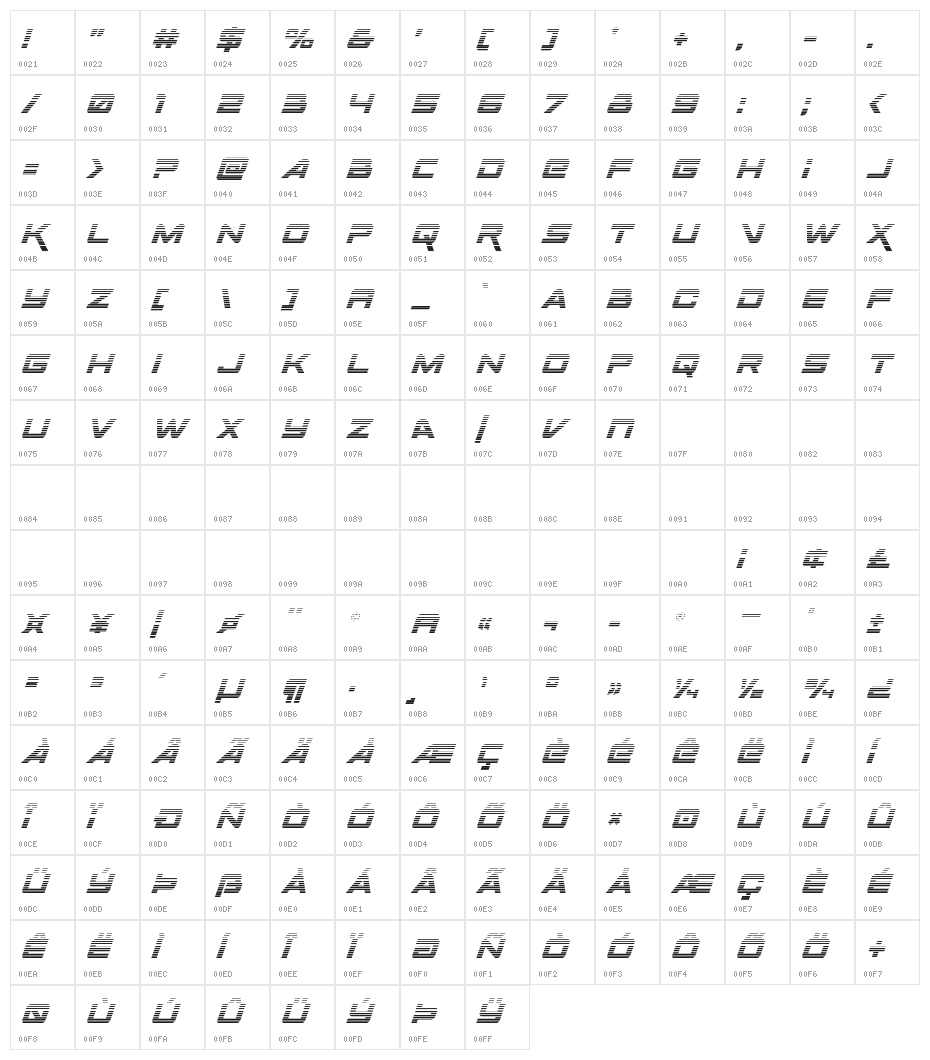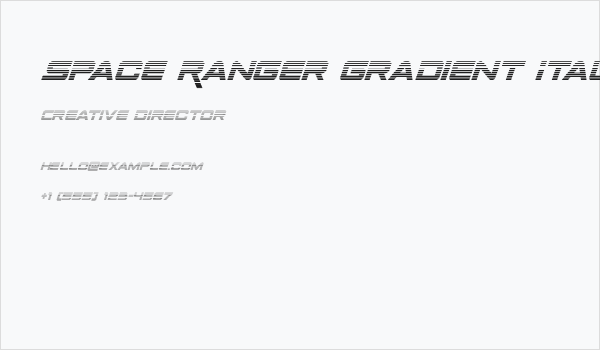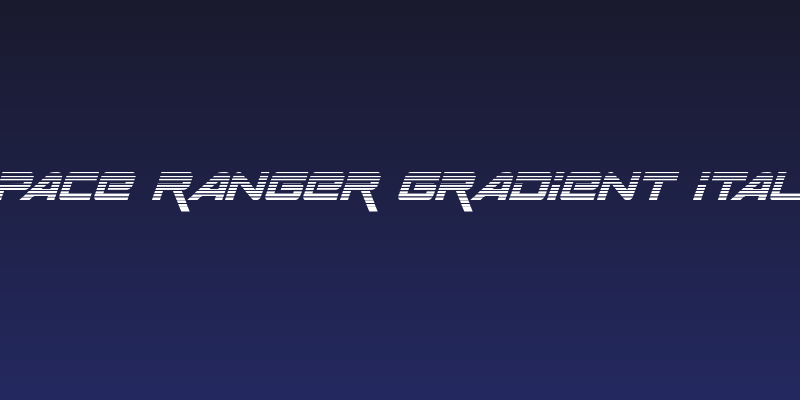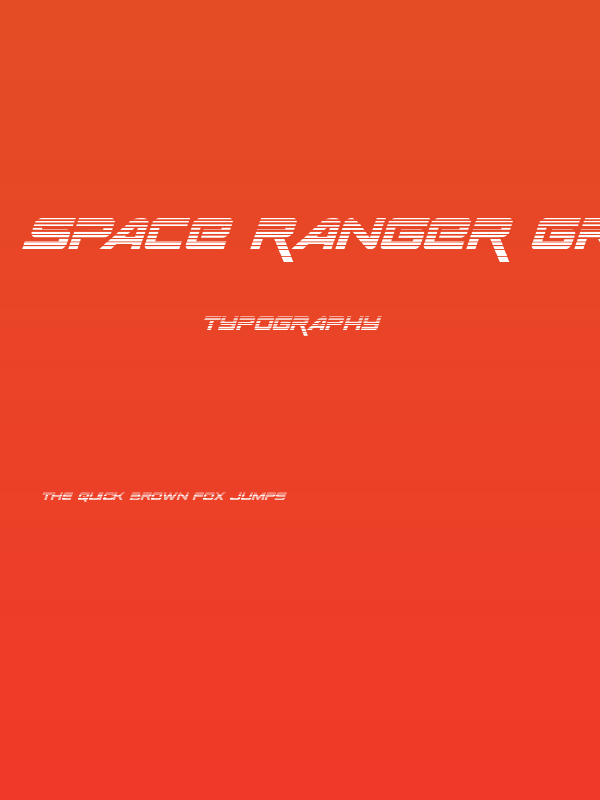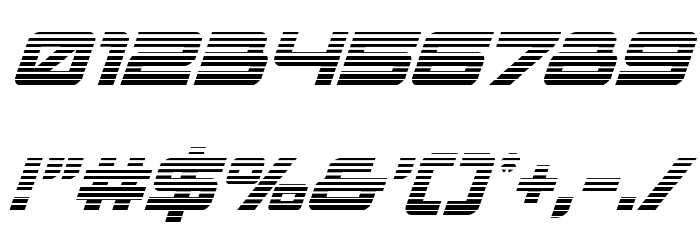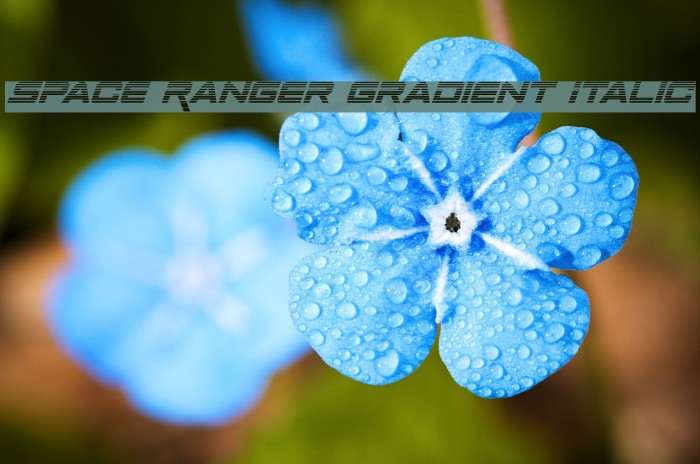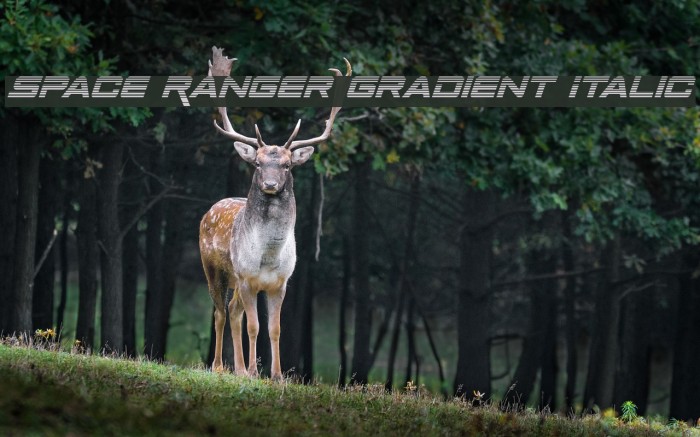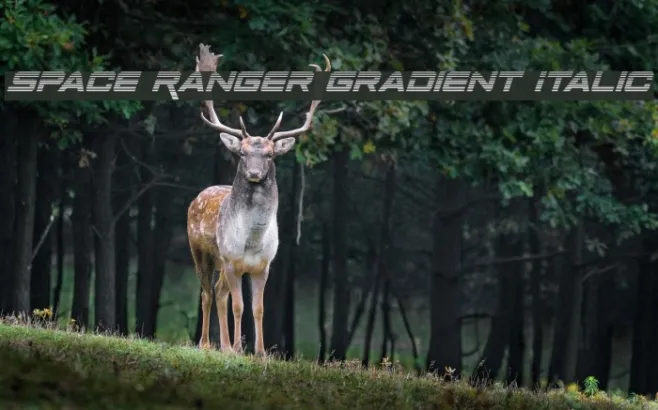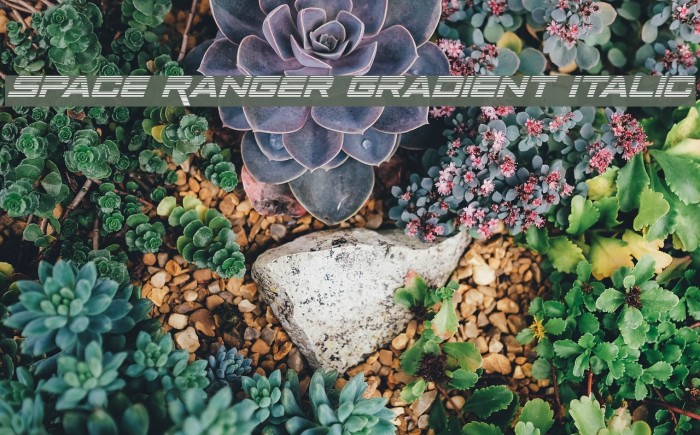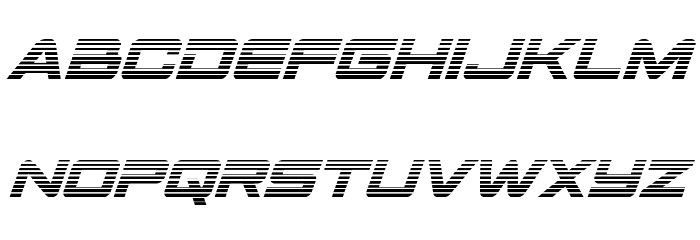
Space Ranger Gradient Italic Font
Space Ranger Gradient Italic Description
This font features a futuristic and dynamic design, characterized by its italicized, slanted letters that convey a sense of motion and speed. The letters are composed of horizontal lines, creating a gradient effect that adds depth and dimension. This unique style is reminiscent of science fiction themes and is ideal for projects that require a modern, tech-inspired look. The font includes a full set of uppercase and lowercase letters, numbers, and a variety of special characters, making it versatile for various design needs.
| Proposed Projects | Ideal for sci-fi themed posters, video game titles, tech branding, and futuristic event flyers. |